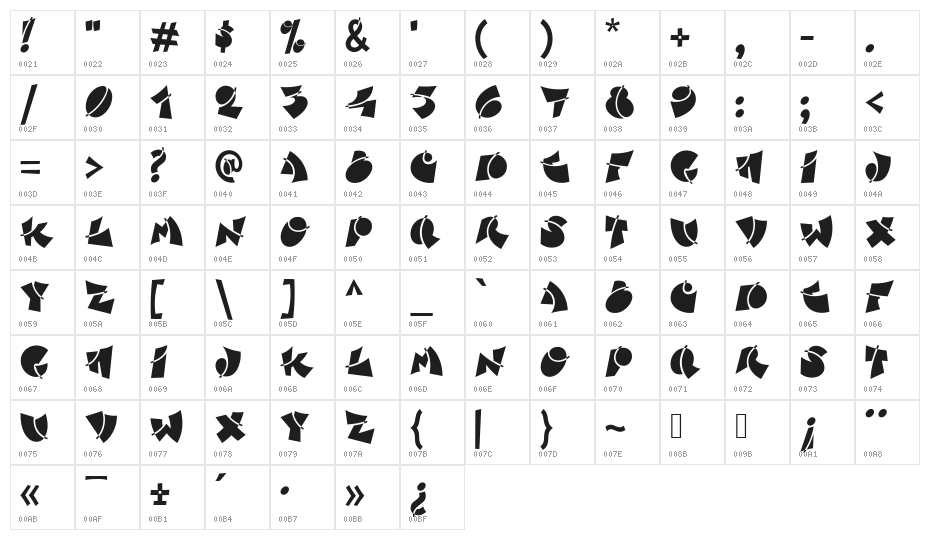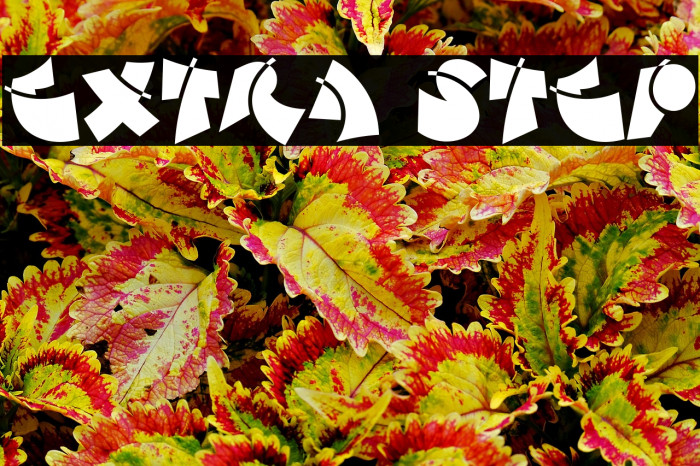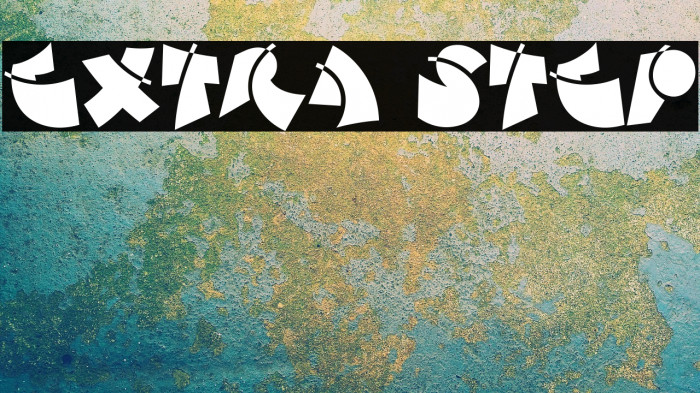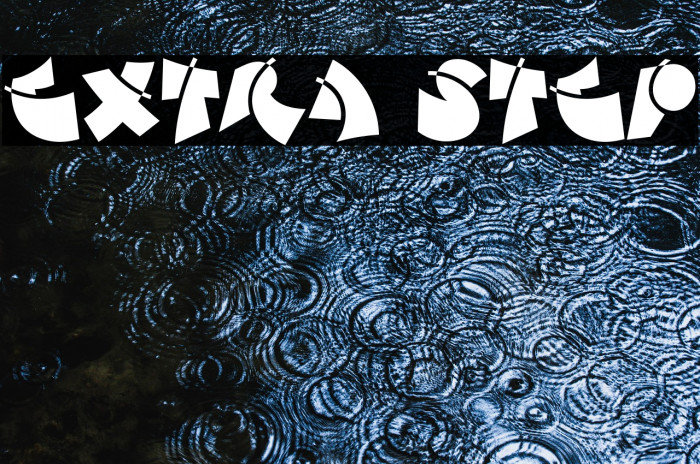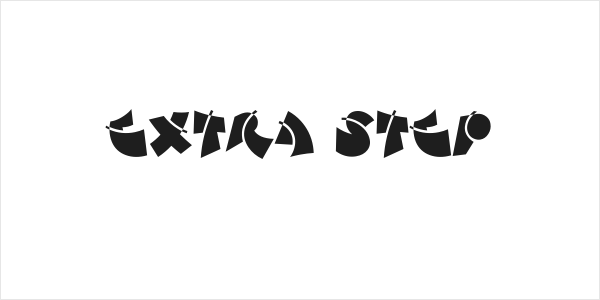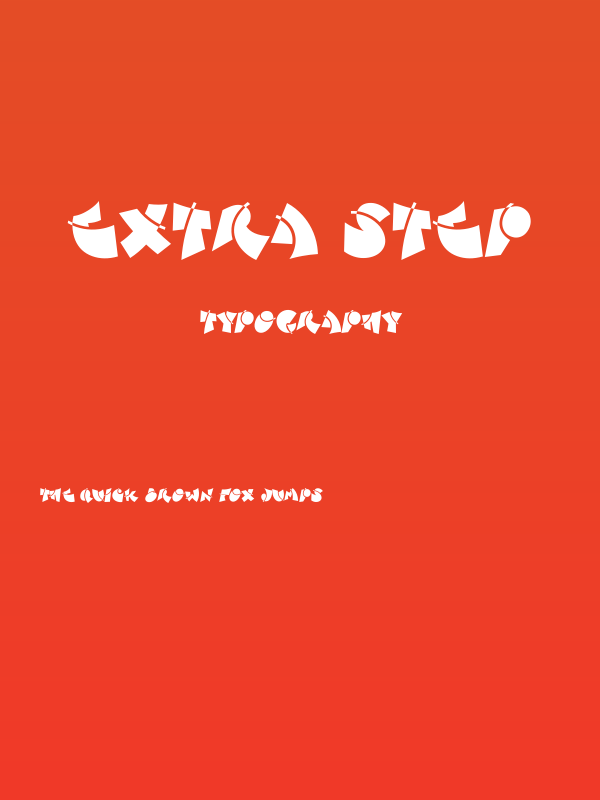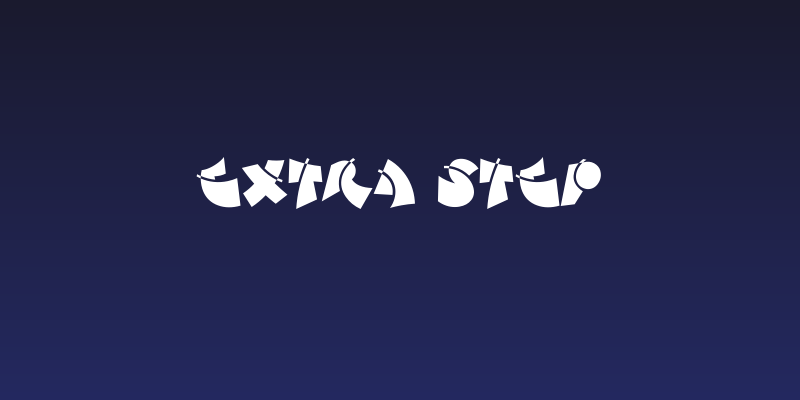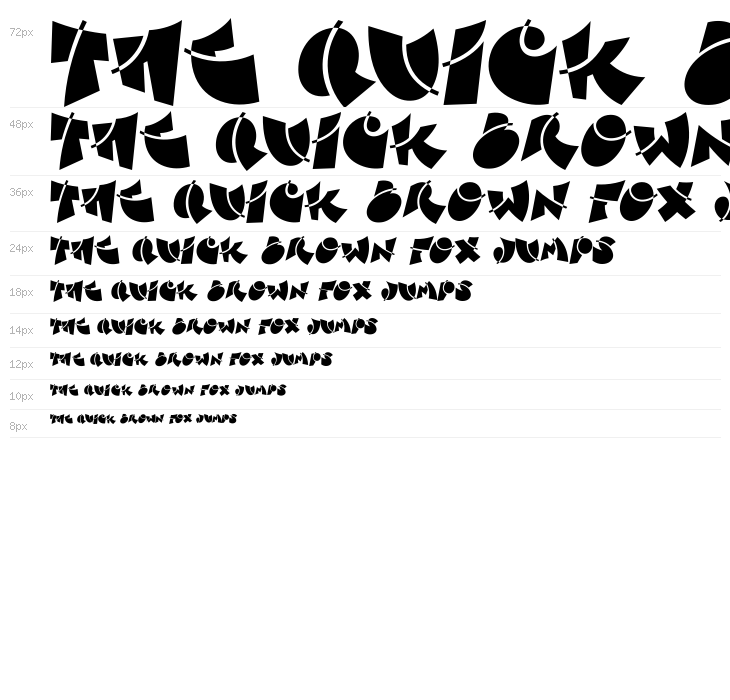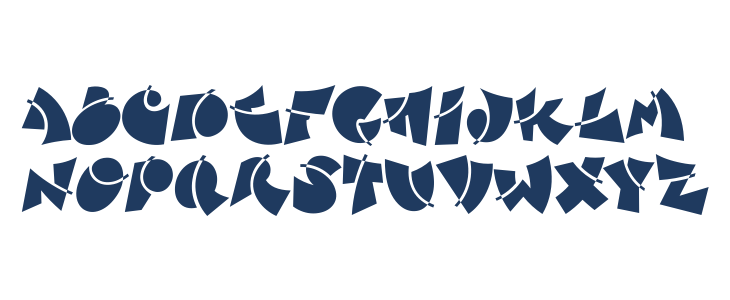
Extra Step Font
Extra Step Description
This font features a bold and dynamic design with a unique geometric style. Each character is composed of angular shapes and curves, creating a visually striking appearance. The letters have a playful and artistic quality, with varying stroke widths and unexpected angles. The font's boldness makes it stand out, while the creative design elements add a sense of movement and energy. This font is ideal for projects that require a distinctive and modern look, capturing attention with its unconventional style.
| Proposed Projects | Ideal for posters, album covers, branding, and any project needing a bold, artistic flair. |